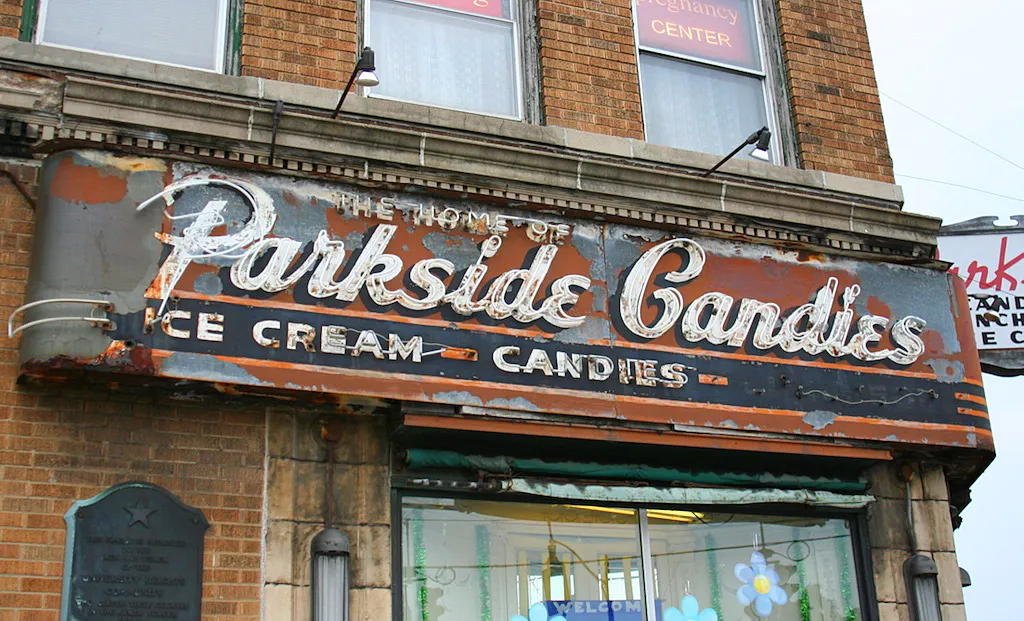
Parkside Candies
While I was off doing type things at TypeCon in Buffalo this last July, my partner was off seeing the city. She got a picture of this breathtakingly beautiful old sign. Wow.